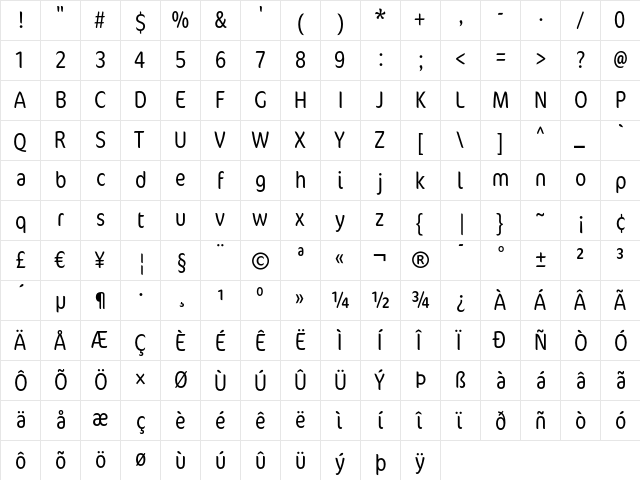
Cocon LightCondensed
Design Context for Cocon Typeface
Cocon takes a measured approach to typography — its balanced proportions and neutral character make it a reliable workhorse for both digital and print work. The delicate stroke weight brings airiness and refinement to layouts. Its narrow stance lets it pack a punch even in space-constrained designs.